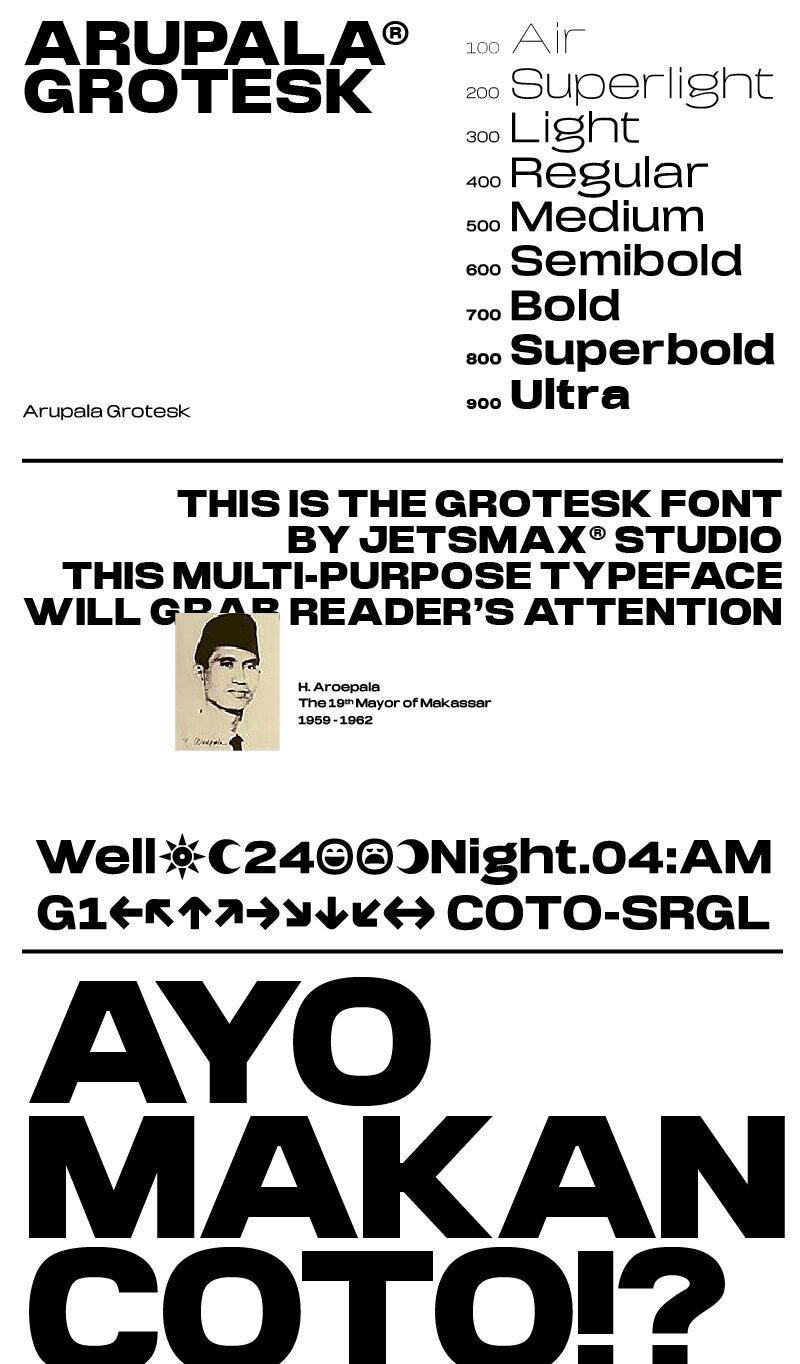
Arupala Grotesk Ultra
Arupala Grotesk Ultra is a striking sans serif font by Jetsmax Studio. With its extra-bold weight and expanded width, this font commands attention and exudes confidence.
Its clean lines and geometric shapes make it suitable for a wide range of projects, from modern logos and brand identities to eye-catching headlines and poster designs. Whether you're creating a sleek website or designing impactful print materials, Arupala Grotesk Ultra will add a touch of boldness and sophistication to your work.